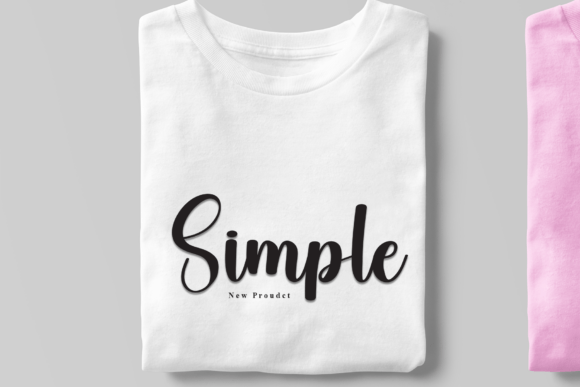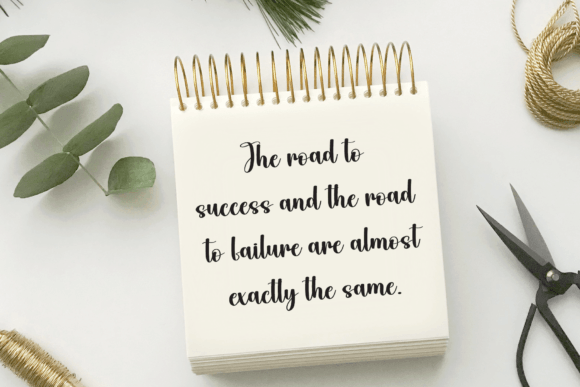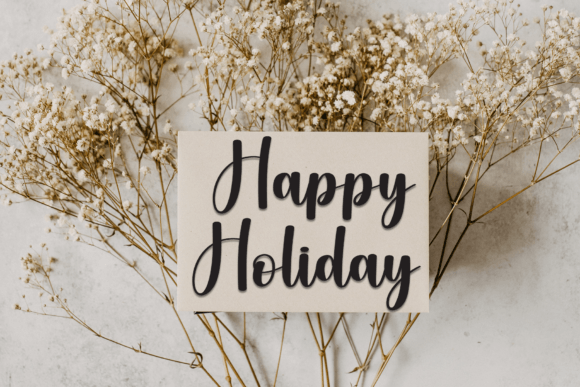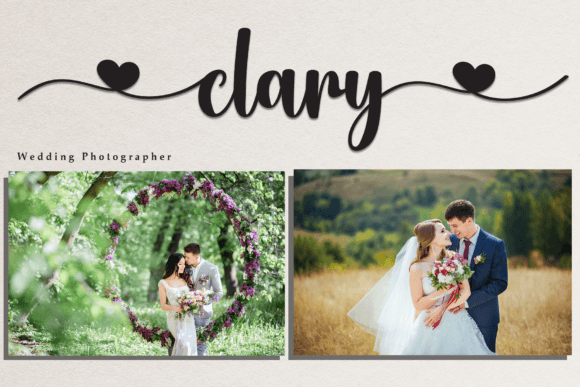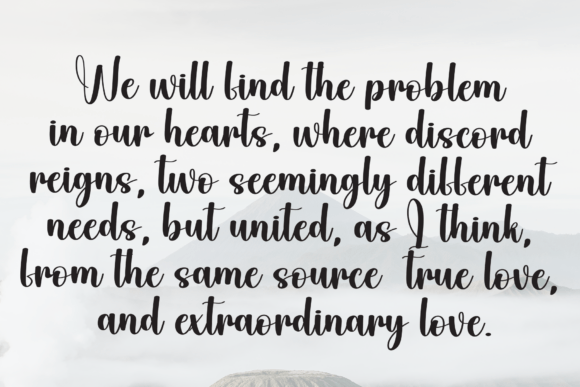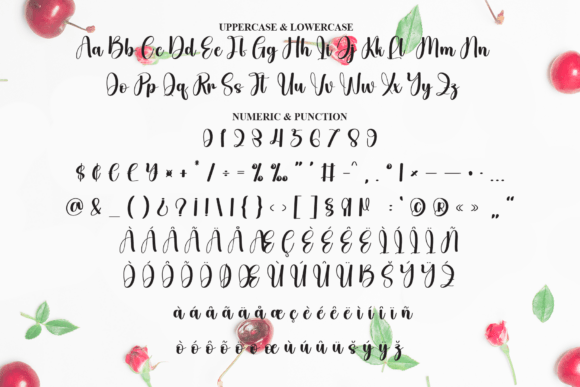
Introducing Cherry Font: The Ultimate Display Font for Whimsical Designs
Are you looking for a font that exudes charm, warmth, and playfulness? Look no further than Cherry Font, a delightful handwritten display font that’s perfect for crafting wedding invitations, personal cards, and design projects that require a touch of whimsy. With its adorable aesthetic and effortless vibe, Cherry Font is sure to spread joy and make your visual communication a breeze.
The Charm of Cherry Font
Cherry Font is a carefully crafted display font that boasts a unique, handwritten look that’s both elegant and playful. Its charming aesthetic is perfect for designers and crafters who want to add a personal touch to their projects. Whether you’re creating wedding invitations, birthday cards, or social media graphics, Cherry Font is sure to make your designs stand out.
Perfect for Whimsical Designs
Cherry Font is designed to bring a touch of whimsy to your designs. Its playful vibe and adorable aesthetic make it perfect for projects that require a lighthearted and carefree approach. From DIY craft projects to professional design endeavors, Cherry Font is the perfect choice for anyone looking to add a dash of personality to their work.
Use Cases for Cherry Font
So, where can you use Cherry Font? The possibilities are endless! Here are a few ideas to get you started:
- Wedding Invitations: Make your wedding invitations truly special with Cherry Font. Its elegant and playful aesthetic is perfect for formal and informal weddings alike.
- Personal Cards: Add a personal touch to your cards with Cherry Font. Whether it’s a birthday, anniversary, or just because, this font is sure to make your cards stand out.
- Design Projects: From social media graphics to branding materials, Cherry Font is perfect for any design project that requires a touch of whimsy.
- DIY Crafts: Take your DIY crafts to the next level with Cherry Font. From handmade cards to decorative signs, this font is sure to add a personal touch to your creations.
Why Choose Cherry Font?
So, why choose Cherry Font over other display fonts? Here are just a few reasons:
- Unique Aesthetic: Cherry Font boasts a unique, handwritten look that’s both elegant and playful.
- Easy to Read: Despite its playful vibe, Cherry Font is easy to read and understand, making it perfect for body text and headings.
- Versatile: Cherry Font is versatile and can be used for a wide range of design projects, from formal to informal.
- High-Quality: Cherry Font is a high-quality font that’s designed to deliver exceptional results.
Tips for Using Cherry Font
Here are a few tips for using Cherry Font in your designs:
- Pair with Other Fonts: Cherry Font pairs well with other fonts, so don’t be afraid to experiment with different combinations.
- Use for Headings: Cherry Font is perfect for headings and titles, but can also be used for body text.
- Experiment with Colors: Cherry Font looks great in a variety of colors, so don’t be afraid to experiment and find the perfect hue for your design.
In conclusion, Cherry Font is a delightful, warm, handwritten display font that’s perfect for designers and crafters looking to add a touch of whimsy to their projects. With its adorable aesthetic and playful vibe, this font is sure to spread joy and make your visual communication a breeze. Whether you’re creating wedding invitations, personal cards, or design projects, Cherry Font is the perfect choice. So why wait? Download Cherry Font today and start creating your own whimsical designs!